Modern Retro Font Bundle
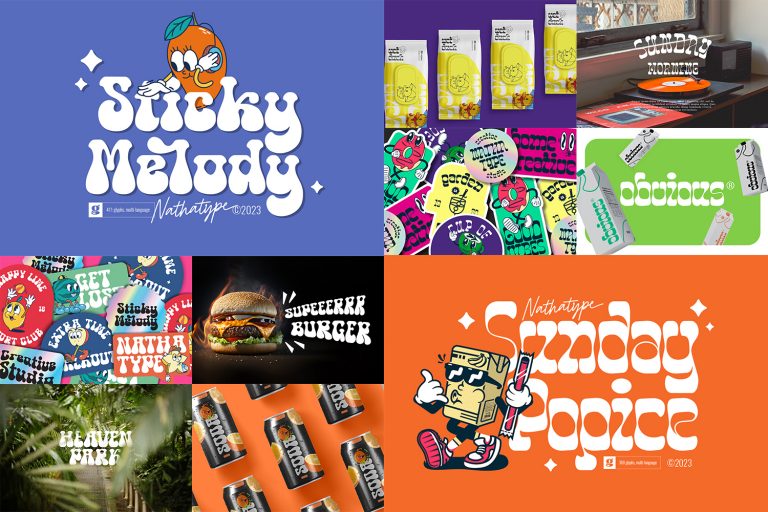
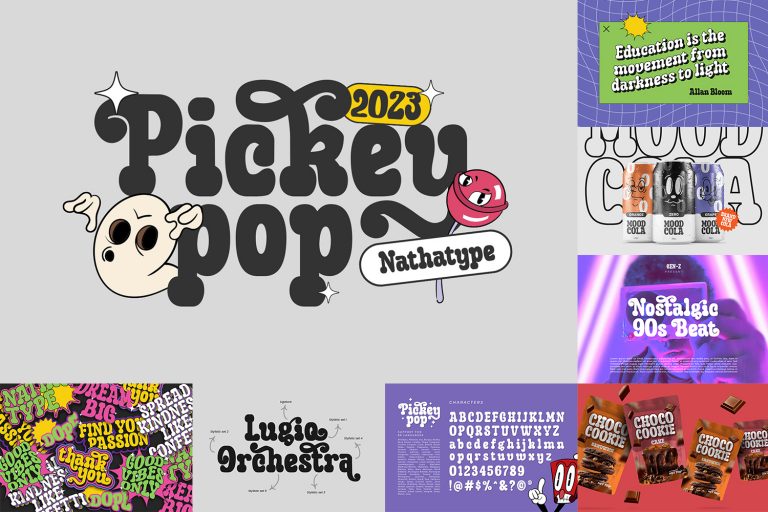
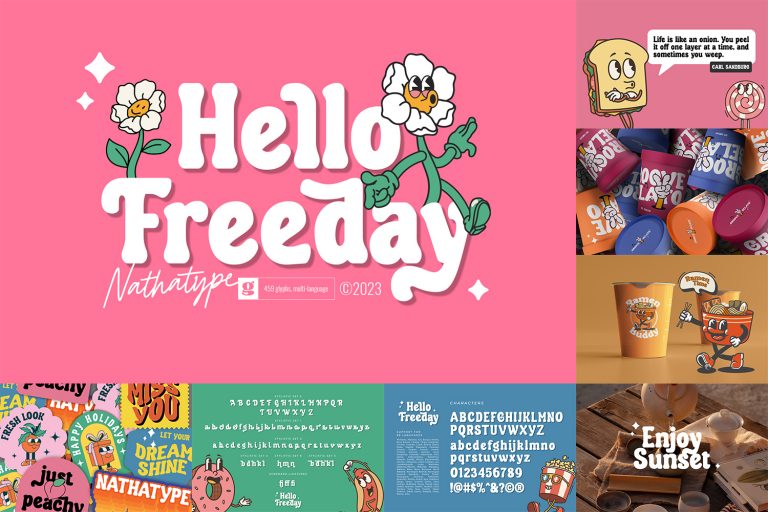
Hello, Everyone! Do you want something special? Introducing Modern Retro Font Bundle from Din Studio.
Experience the perfect fusion of the past and the present with our collection. A collection of carefully curated typefaces that seamlessly blend the timeless allure of retro design with the sleek sophistication of modern typography. It can be used for many design projects, such as poster, logo, book cover, branding, heading, printed product, merchandise, quotes, social media campaign, etc.
The font includes Multilingual Support as our commitment to support your brand globally recognize. See the previews above to get some inspiration on how you can use them.
Modern Retro Font Bundle included :